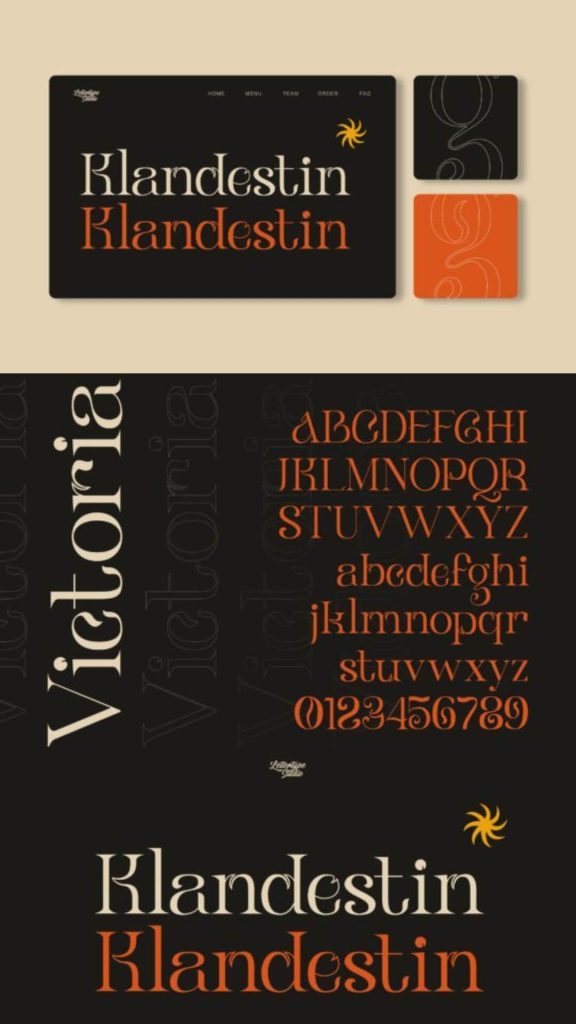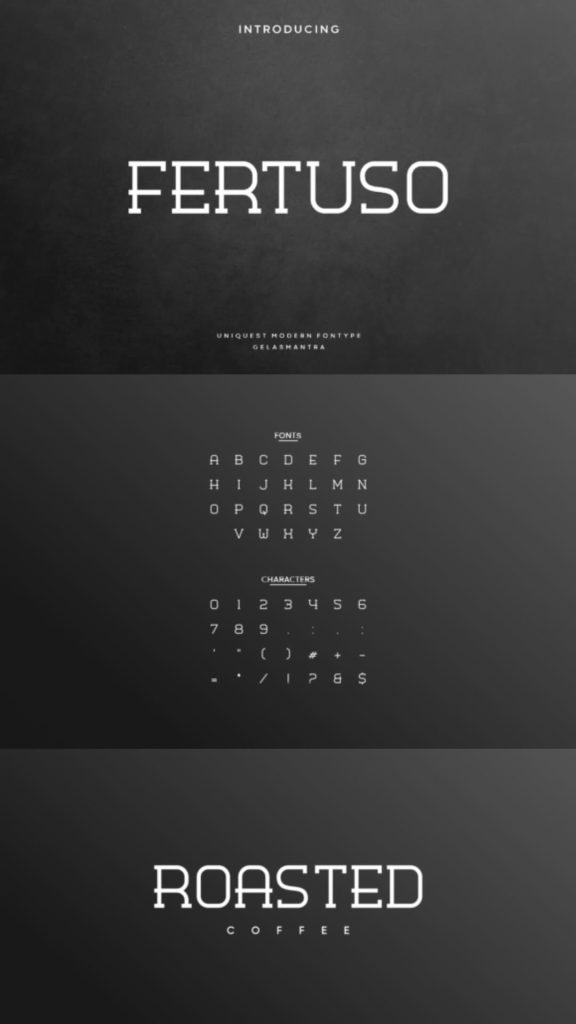
Best Fonts for Logo Clothing Brand Streetwear Businesses That Stand Out
Typography matters a lot in streetwear. Before someone checks the fabric, stitching, fit, or price of a hoodie, they usually see the logo first.
That logo has to carry the whole mood of the brand.
A good streetwear font can make a clothing brand feel premium, underground, rebellious, clean, vintage, futuristic, or more lifestyle-driven. And honestly, this is where many new apparel brands either look serious right away — or instantly feel generic.
While exploring different typefaces for fashion branding, these 16 fonts consistently stood out for their personality, logo potential, and compatibility with modern streetwear aesthetics. Whether you're launching a new clothing brand or refreshing an existing label, each of these fonts brings something distinct to the table.
Fonts for Logo Clothing Brand Streetwear Businesses
1. Halkind
Style: Blackletter / Gothic
Halkind has that bold gothic look that immediately feels connected to luxury streetwear. It has the kind of visual weight you often see in brands inspired by dark fashion, tattoo culture, premium hoodies, and limited drops.
What makes it useful is that it doesn’t feel like a random medieval font. The letterforms still have a clean enough structure for branding, especially when used as a main logo or chest print.
Best for:
- Luxury streetwear
- Gothic fashion brands
- Premium hoodie collections
- Limited-edition drops
Brand feel: Bold, exclusive, premium.
2. Moonlit
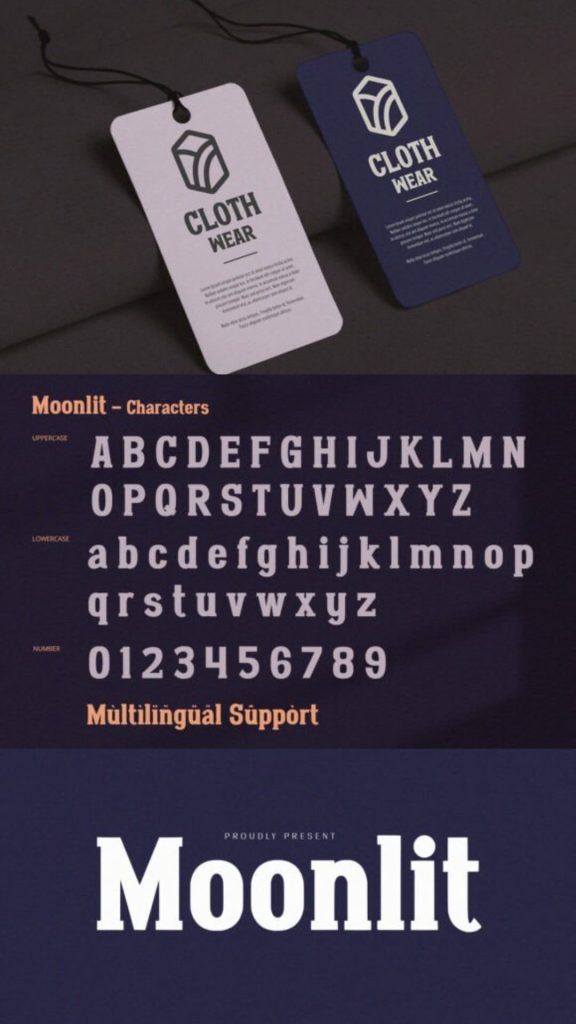
Style: Bold Serif Display
Moonlit feels more polished and fashion-focused. It has thick serif shapes that give a logo strong presence without making it look too aggressive.
This type of font works nicely when a streetwear brand wants to feel upscale but still modern. It’s better for logos, tags, packaging, and editorial-style layouts than for long text.
Best for:
- Contemporary streetwear
- Minimal fashion labels
- Lifestyle apparel brands
Brand feel: Modern, clean, upscale.
3. Bezamin Harison
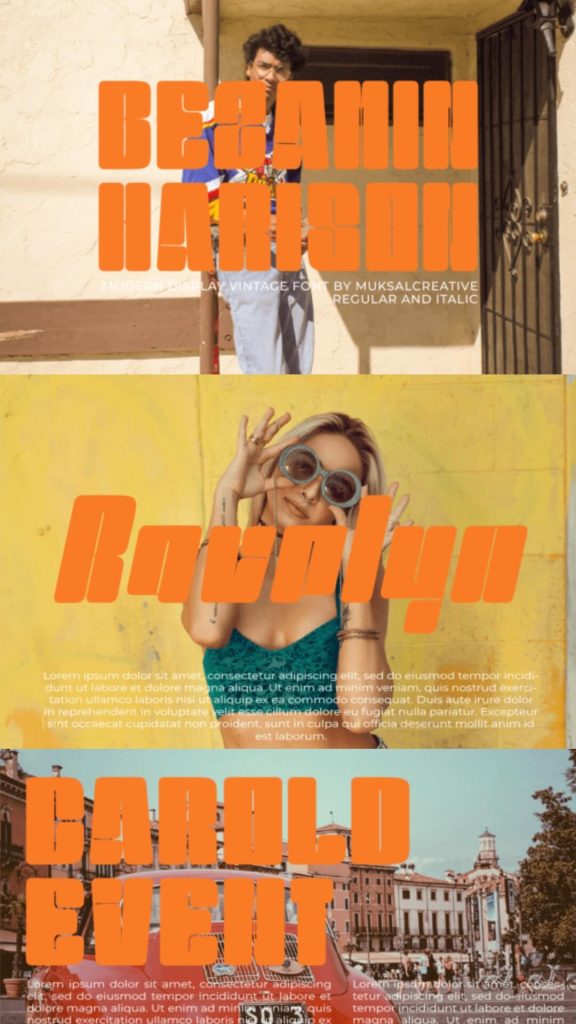
Style: Vintage Display
Bezamin Harison leans into a retro, slightly nostalgic look. The oversized letterforms make it easy to imagine on t-shirts, skate graphics, posters, and Instagram promo designs.
It’s a good fit for brands that want something with personality instead of a plain sans serif logo.
Best for:
- Vintage streetwear
- Skate brands
- Retro fashion collections
Brand feel: Nostalgic, creative, expressive.
4. Glacier
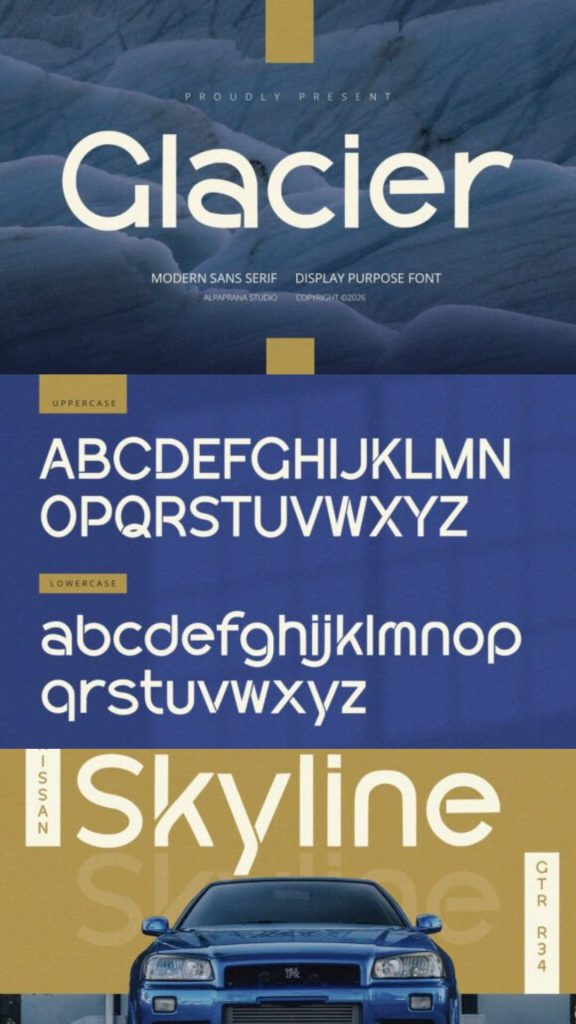
Style: Modern Display Sans Serif
Glacier is one of the cleaner options in this list. It has a geometric, futuristic feel, which makes it especially useful for techwear and modern urban branding.
The nice thing about this kind of font is versatility. It can look sharp on a logo, sleeve print, woven label, or website header without becoming too decorative.
Best for:
- Techwear brands
- Urban lifestyle apparel
- Contemporary fashion startups
Brand feel: Modern, innovative, minimalist.
5. Amorous
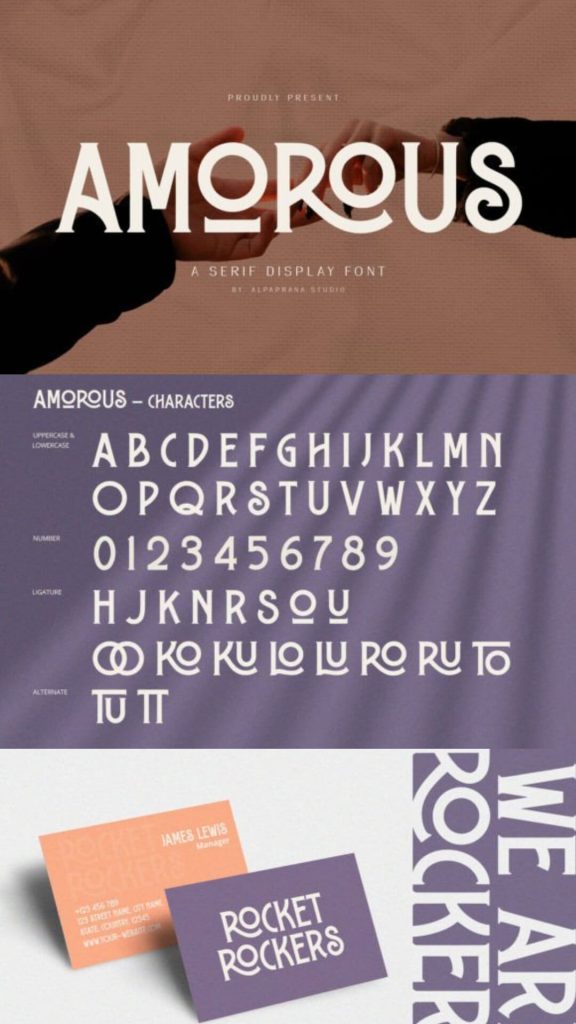
Style: Elegant Serif
Amorous brings a more refined fashion feel. It’s not loud in the same way as Halkind or Bremin, but that’s the point.
The serif details make it feel premium and stylish, especially for apparel brands that want to sit somewhere between boutique fashion and streetwear.
Best for:
- Premium streetwear
- Fashion boutiques
- Designer apparel labels
Brand feel: Sophisticated, stylish, luxurious.
6. Aethelion
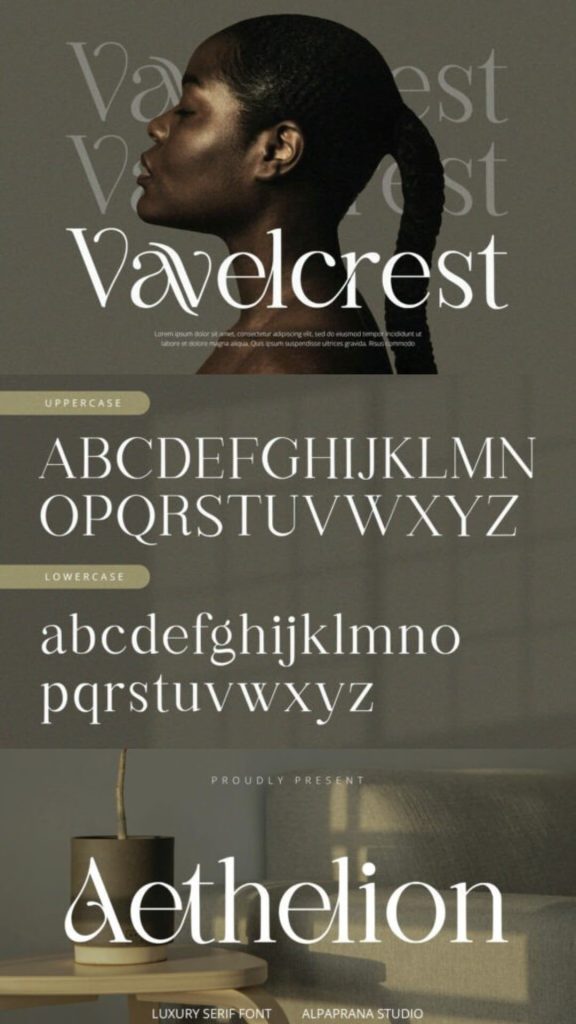
Style: Luxury Serif
Aethelion feels very fashion-forward. It has the kind of elegant structure that can make a clothing logo look more expensive before the customer even sees the product.
This is a good choice for capsule collections, minimal branding, premium packaging, and brands that want a more editorial identity.
Best for:
- Luxury fashion labels
- Premium streetwear
- Capsule collections
Brand feel: Refined, premium, aspirational.
7. Bremin
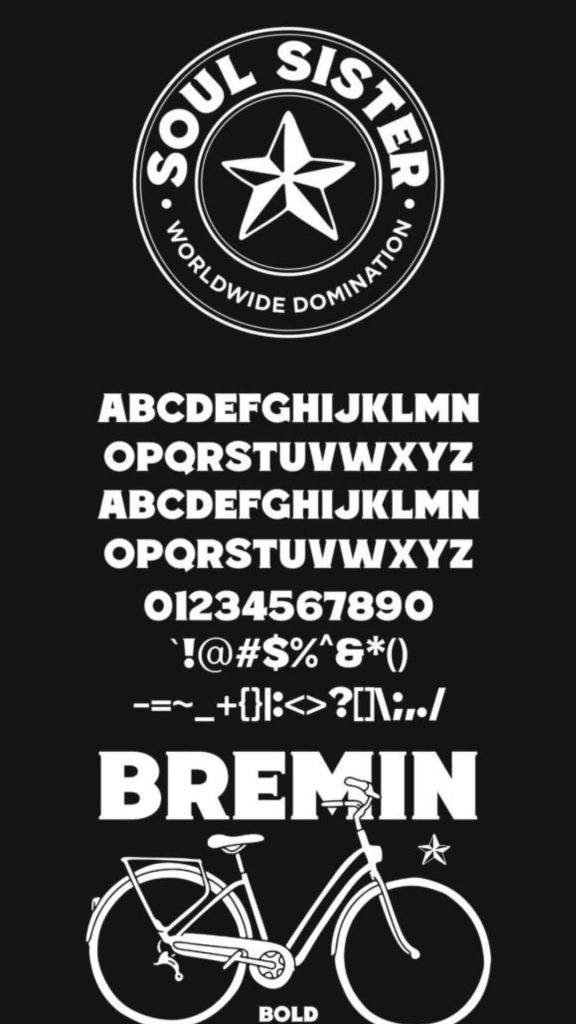
Style: Vintage Bold Serif
Bremin is probably one of the most naturally streetwear-ready fonts in the collection. It has a strong all-caps presence and a rugged vintage tone that feels right for men’s apparel, motorcycle-inspired graphics, workwear, and bold t-shirt logos.
It has enough personality to stand alone as a logo, which is useful for newer clothing brands that don’t yet have a full visual identity.
Best for:
- Men’s streetwear
- Biker-inspired fashion
- Workwear collections
Brand feel: Strong, masculine, rugged.
8. Witches Skeletons
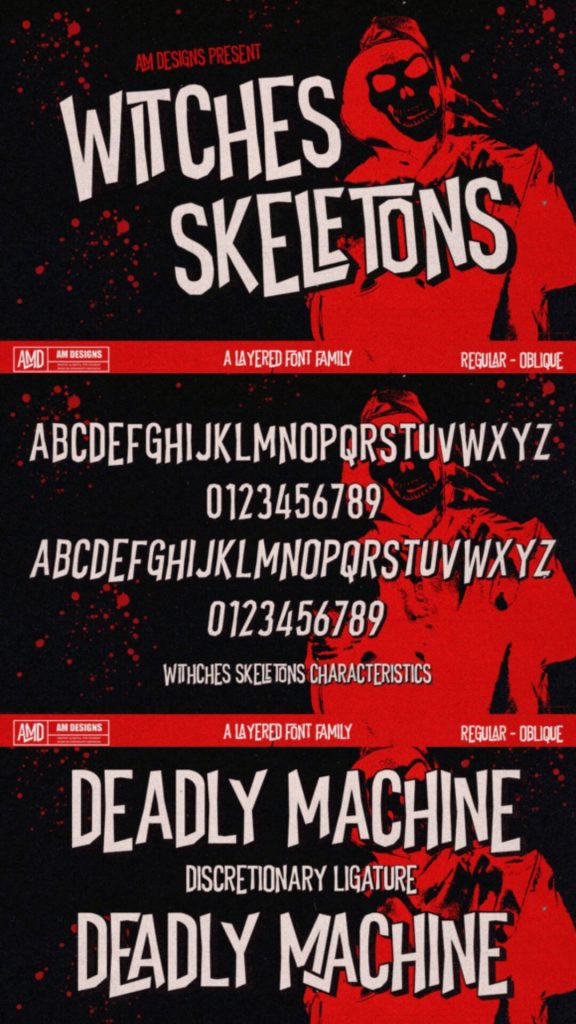
Style: Horror Display
Yes. Vintage-inspired typography remains extremely popular in streetwear. Fonts like Bezamin Harison, Bremin, and Benfuego can add character and authenticity while still feeling relevant when paired with modern layouts and branding.
What font size works best for clothing logos?
For logo design, readability matters more than size. A font should remain clear whether it's printed on a small neck label or displayed as a large chest graphic. Testing the logo at multiple sizes before launching a brand is always a good idea.